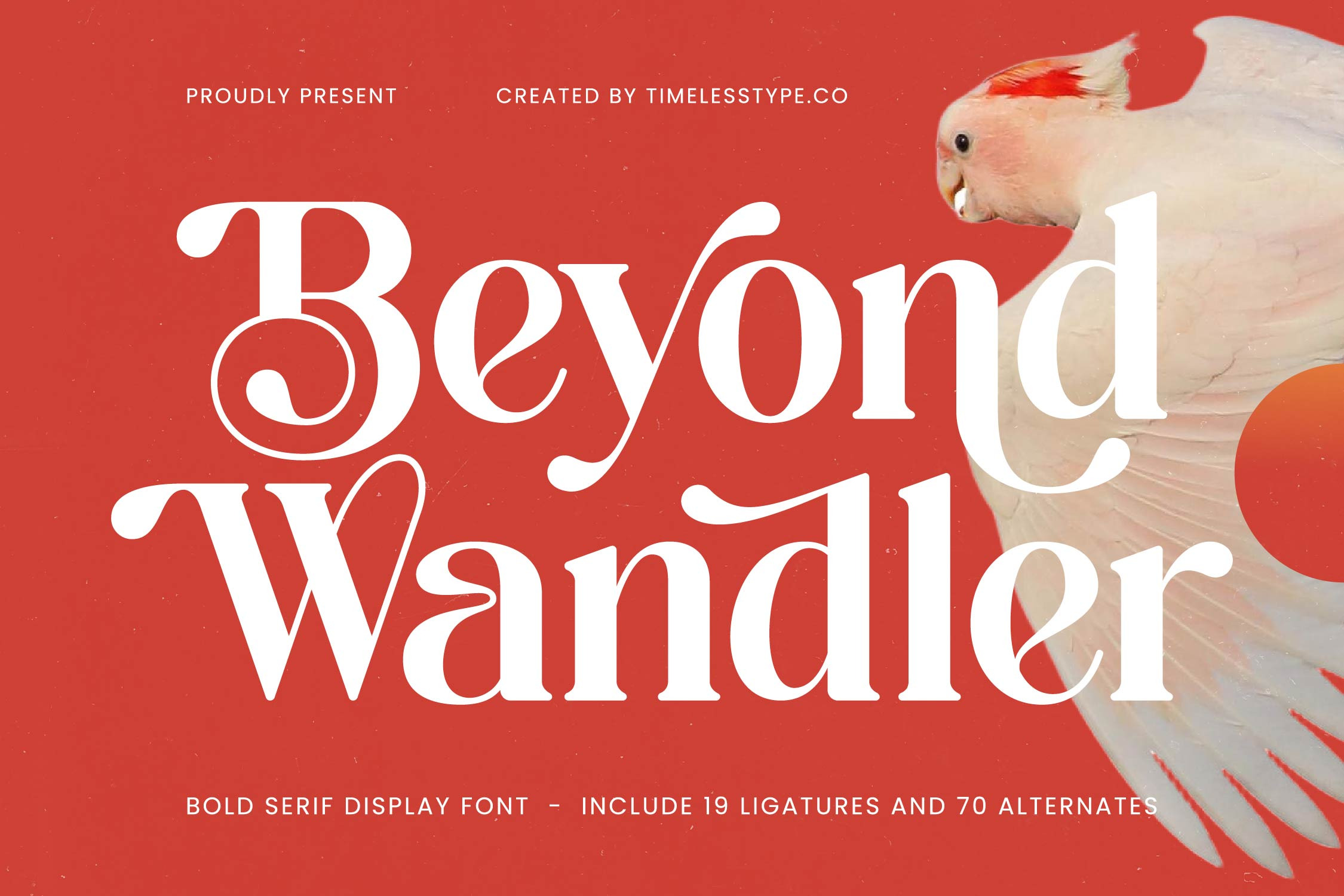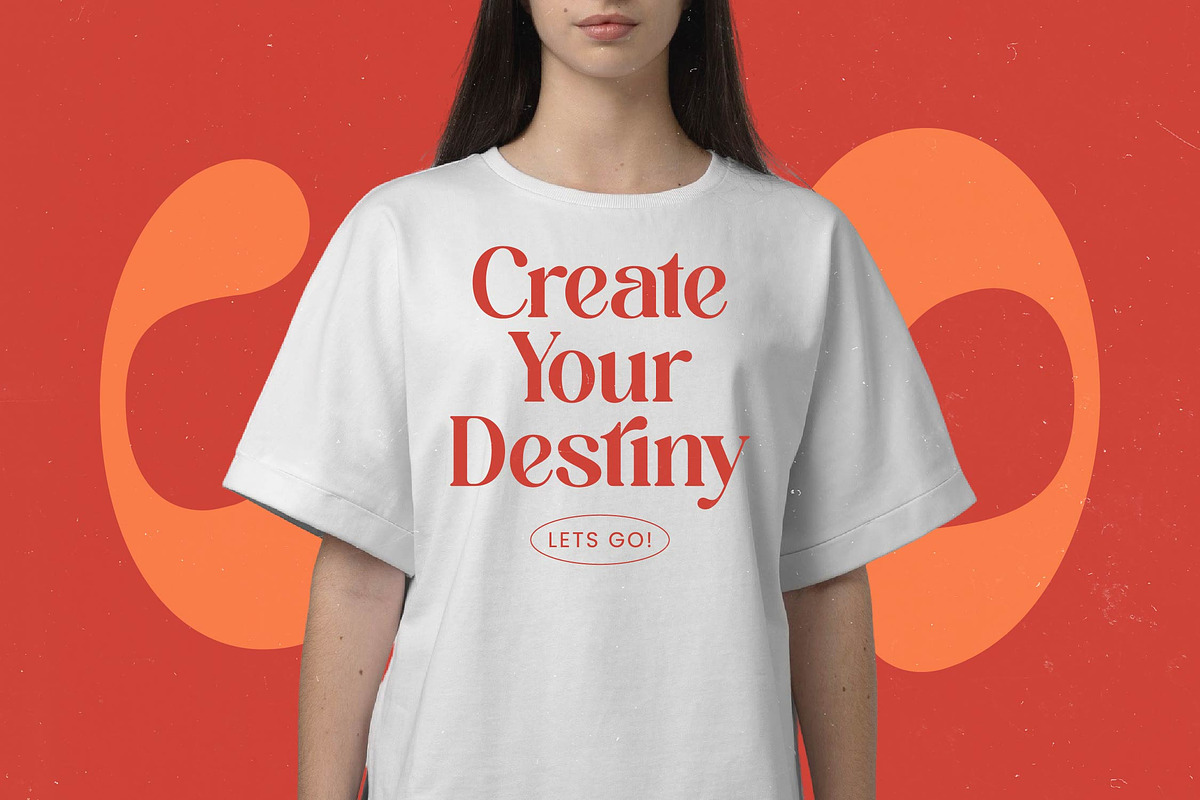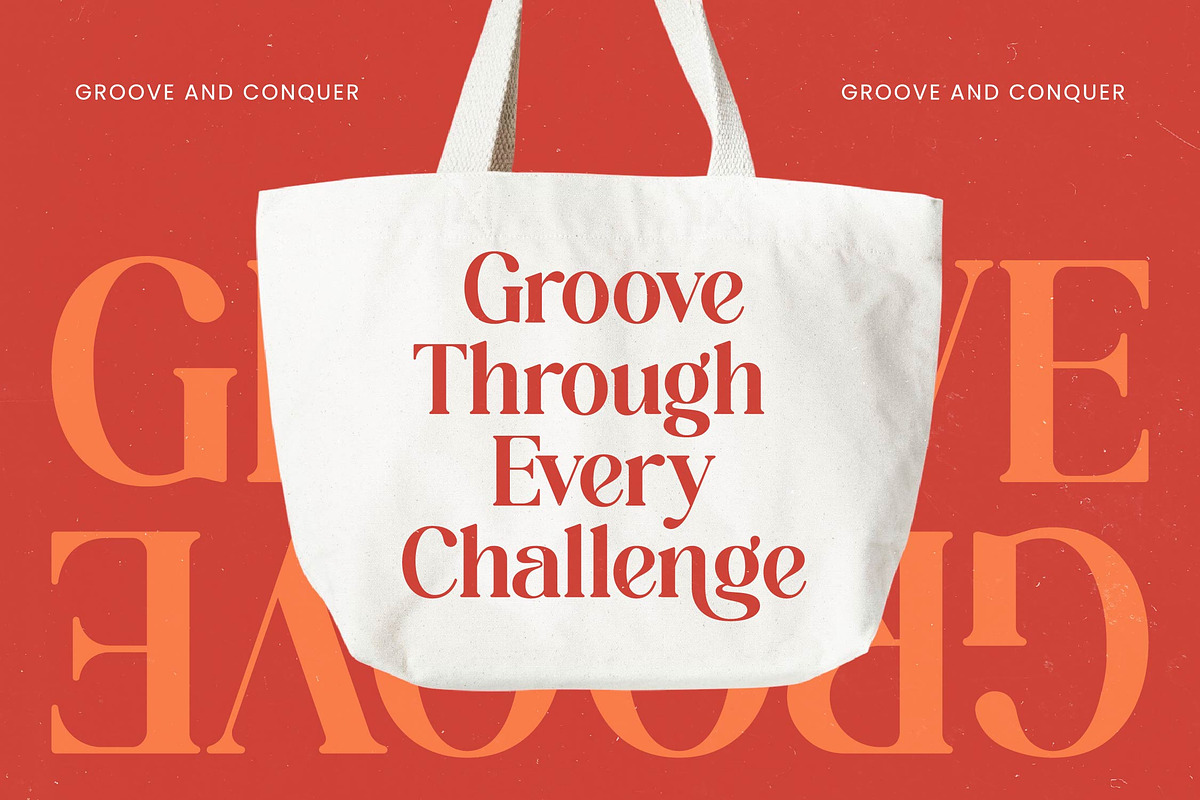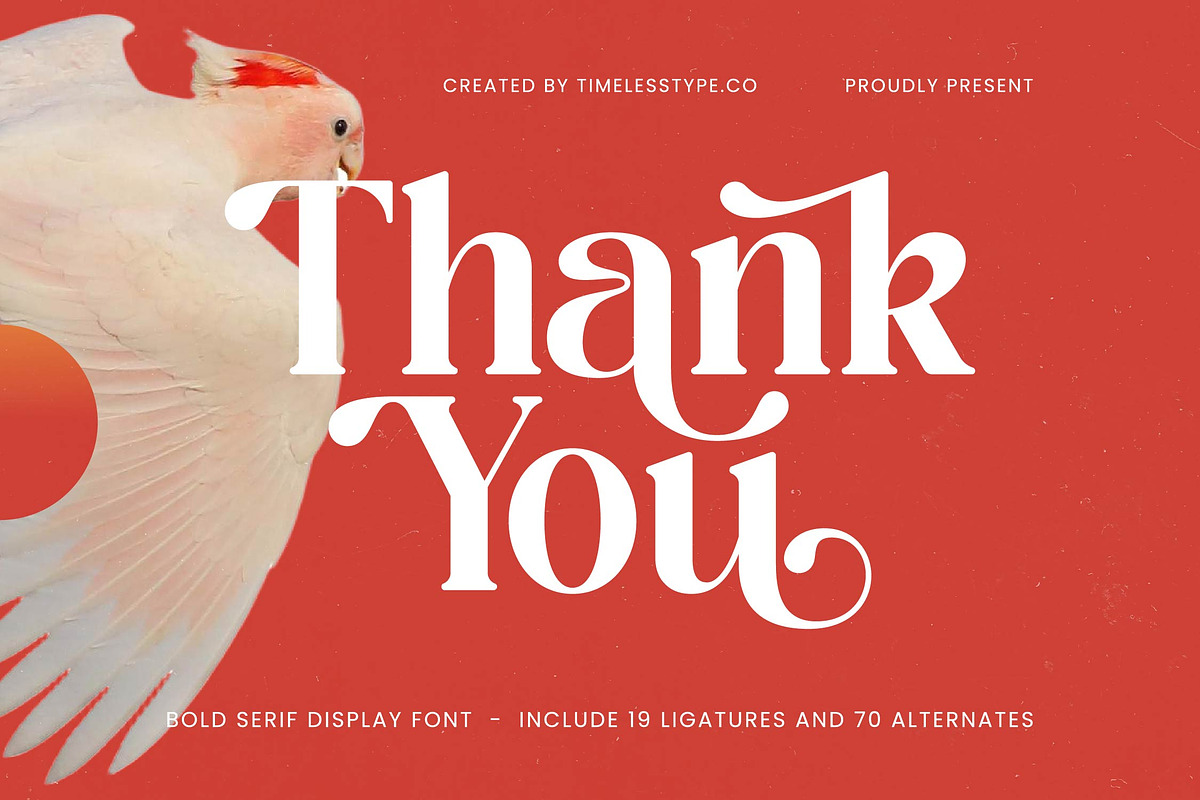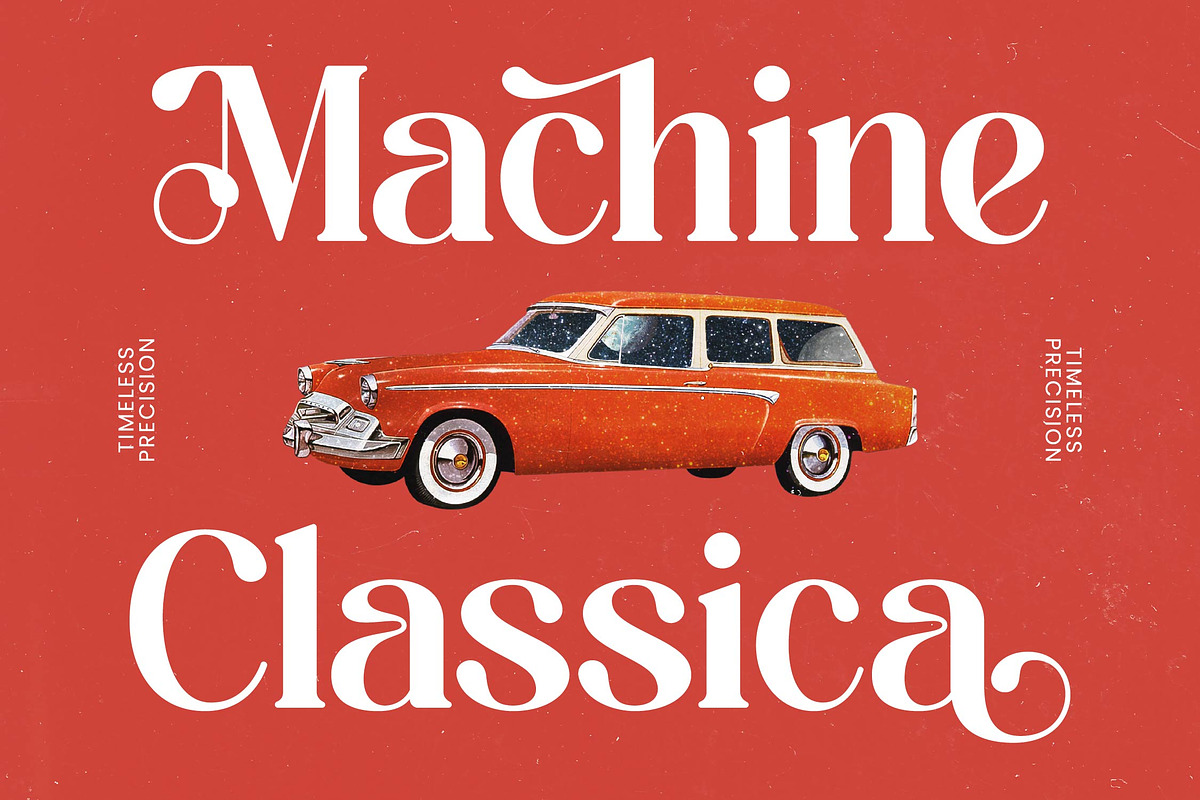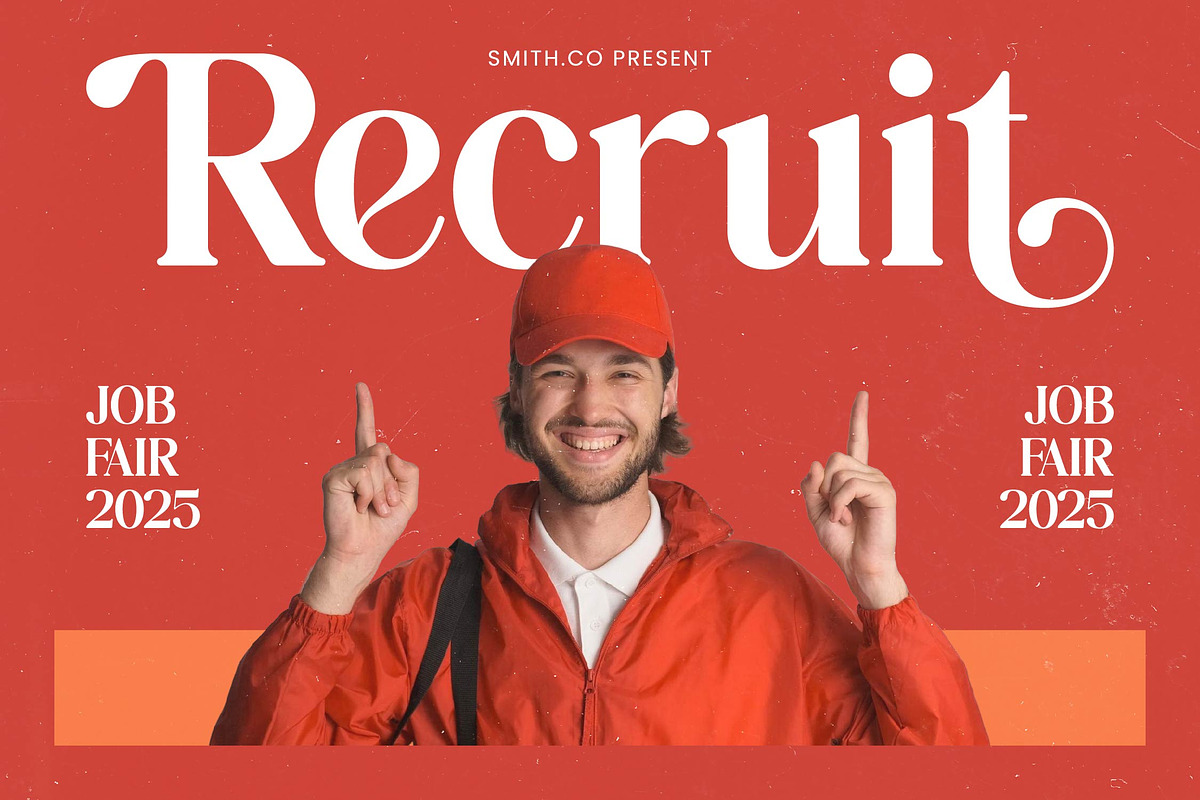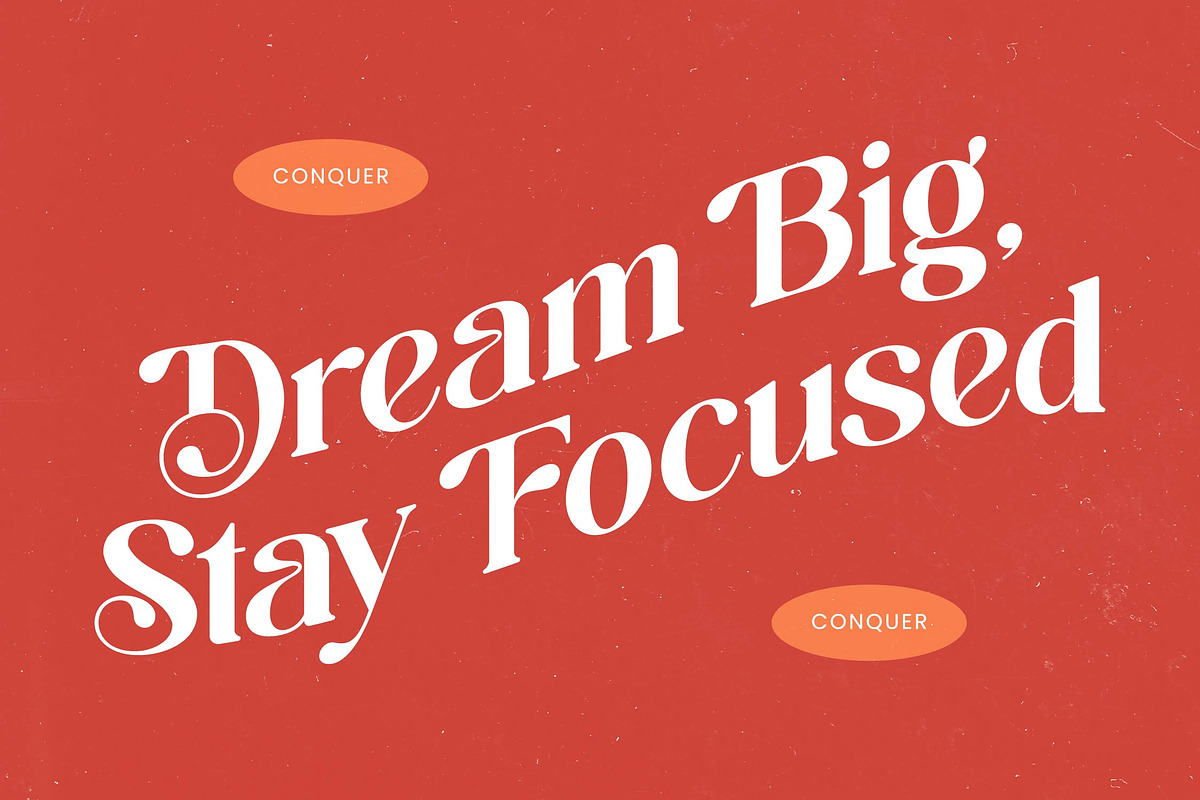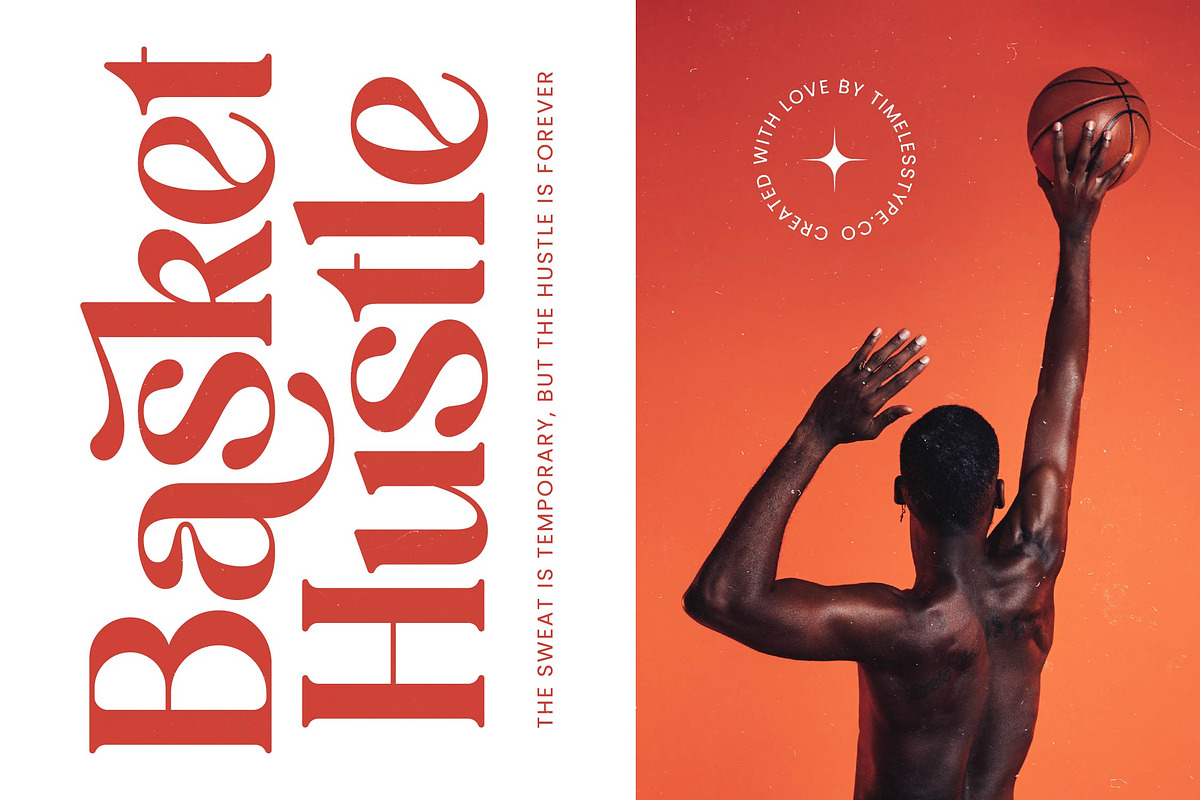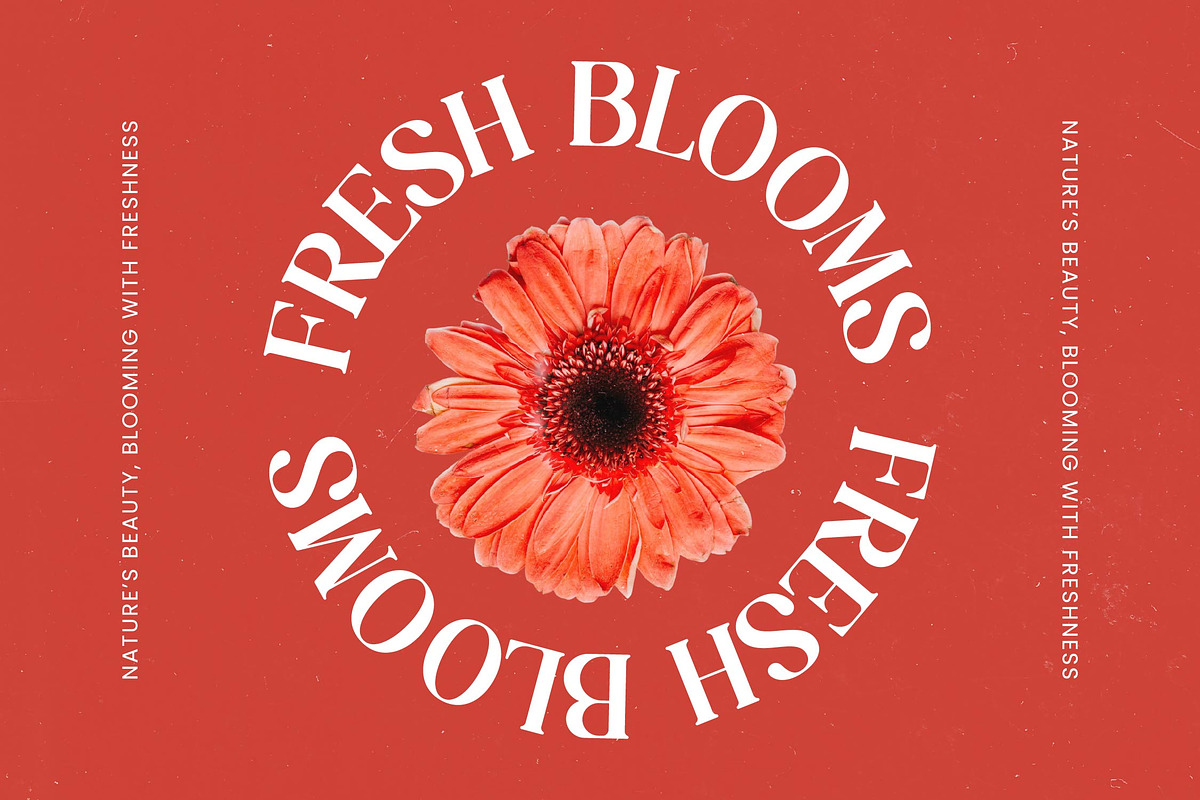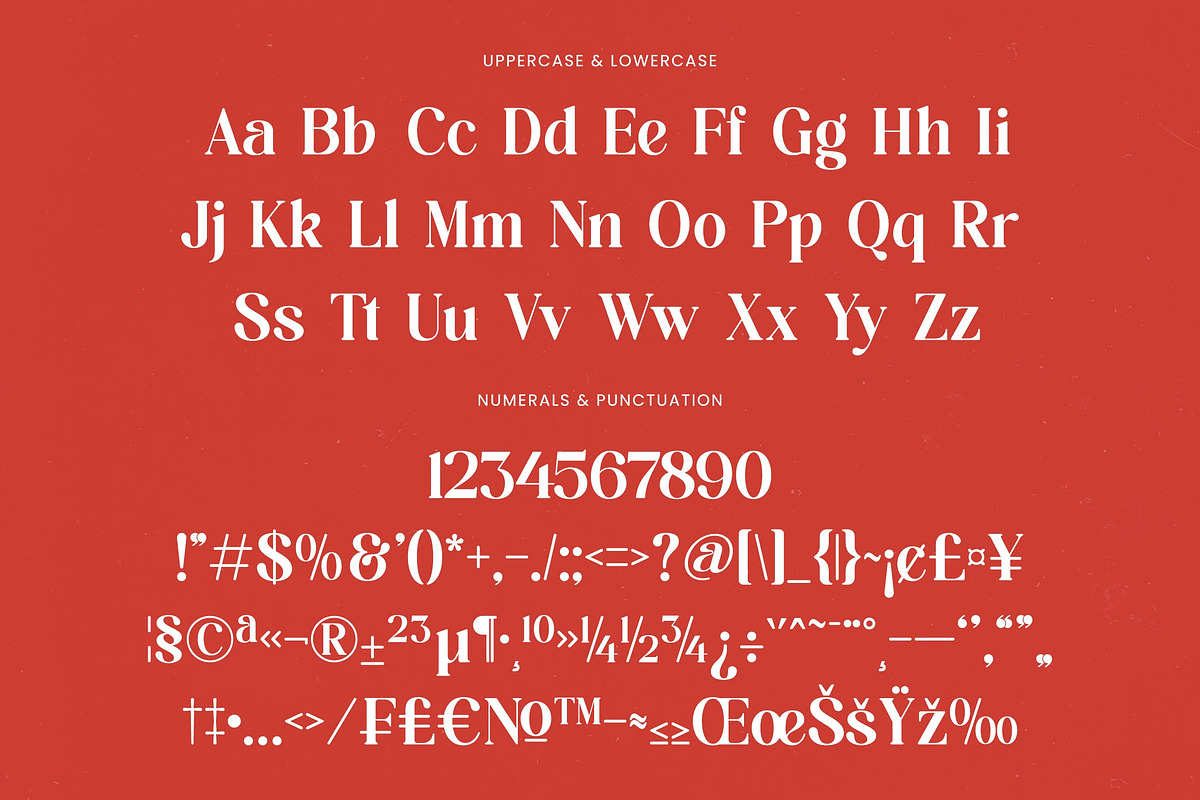
Beyond Wandler Modern Serif Font
Beyond Wandler is a symphony of elegance and boldness, crafted to transform ordinary text into a visual masterpiece. This font captures the essence of sophisticated charm, making every character a statement of pure artistic intent.
Drawing inspiration from the fluid motions of nature and the timeless grace of classic high-fashion typography, this typeface feels alive and organic. The imagery of the white cockatoo reflects its spirit: exotic, attention-grabbing, and inherently graceful in its every curve.
This modern serif display is defined by its luxury typography feel and high-contrast serif strokes that command attention instantly. Designed as a premium editorial font, it offers a significant branding impact for those looking to elevate their visual identity with a touch of modern class.
Perfectly aligned with the current modern serif trend, this typeface bridges the gap between vintage nostalgia and contemporary minimalism. It stands at the forefront of editorial display fonts, providing character-driven typography that meets the demands of today's most discerning designers.
Ideal for high-end logo design and comprehensive branding projects, its versatile nature shines across editorial layouts and luxurious packaging. From the intimacy of a wedding invitation to the bold runways of fashion magazines, it delivers unmatched stylistic flair.
The font package is packed with professional features including unique ligatures and creative alternates that allow for deep customization. With stunning swashes, full multilingual support, and a wide range of international characters, it ensures global compatibility for any creative endeavor.
- Ligature 19 Alternate 70